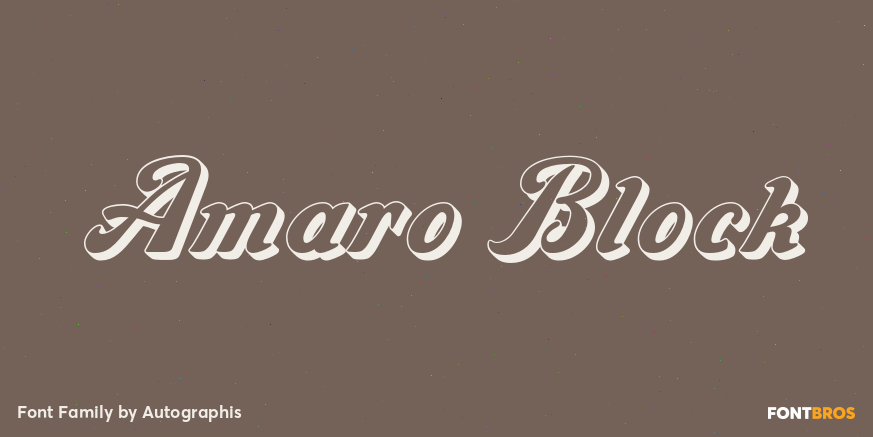
Amaro Block
About Amaro Block
Amaro Block is another decorative addition to my Amaro font family. Yes the font can be mixed with all Amaro fonts. The Amaro Mask Block is to be used as an underlay to the normal Amaro Block; this gives you the possibility to create a two-colored font.…